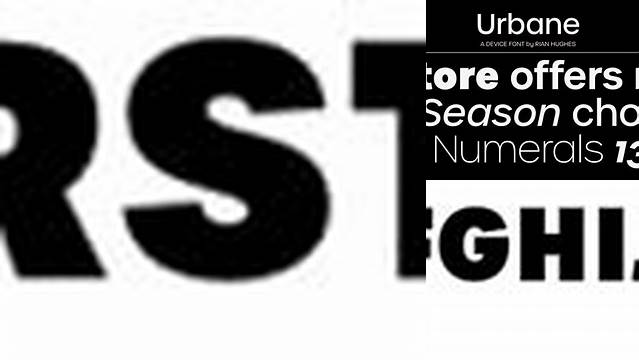
Are you looking for urbane heavy fonts? If you're a designer, a content creator, or just someone who loves typography, you know how crucial the right font can be. A font isn't just a way to display text; it's a powerful tool that can evoke emotions, set a tone, and even define a brand's identity. Among the myriad of fonts available, the Urbane Heavy font stands out for its bold, modern aesthetic. In this comprehensive guide, we'll dive deep into the world of Urbane Heavy, exploring what makes it so special, where you can find it for free download, and how to best use it in your projects. So, let's get started, guys!
What Makes Urbane Heavy Font So Special?
First off, let's talk about why Urbane Heavy has become such a popular choice. This font family is characterized by its clean lines, strong presence, and contemporary feel. It's a sans-serif typeface, which means it lacks the small decorative strokes (serifs) that you find in fonts like Times New Roman or Garamond. This gives it a more modern and minimalist appearance, perfect for designs that need to feel current and impactful. The heavy weight of the font adds to its visual impact, making it ideal for headlines, titles, and anywhere you need to grab the reader's attention.
But the appeal of Urbane Heavy goes beyond its aesthetics. It's also incredibly versatile. Whether you're designing a website, creating a poster, or putting together a presentation, this font can adapt to a wide range of applications. Its legibility is excellent, even at smaller sizes, which makes it a great choice for body text as well. Plus, the clean design ensures that it pairs well with other fonts, giving you the flexibility to create dynamic and visually interesting layouts. Think about it – the right font can make or break a design, and Urbane Heavy is a reliable option that can elevate your work.
Another key aspect of Urbane Heavy is its ability to convey a sense of strength and confidence. The bold weight and clean lines give it a robust feel, making it perfect for projects that need to project authority or stability. For instance, it's a popular choice for corporate branding, where it can help to create a professional and trustworthy image. But don't let its strength fool you – Urbane Heavy also has a touch of elegance. The carefully crafted letterforms have a subtle sophistication that makes it suitable for more refined designs as well. It's this blend of strength and elegance that makes Urbane Heavy a truly versatile and valuable addition to any designer's toolkit.
In short, Urbane Heavy stands out because it perfectly balances modern aesthetics with practical usability. Its bold presence and clean lines make it visually striking, while its legibility and versatility ensure that it can be used in a wide range of projects. And let’s be real, who doesn’t love a font that can make your work look both professional and stylish? It's no wonder so many designers are on the hunt for a free download of Urbane Heavy.
When browsing these sites, pay close attention to the licensing information. Free fonts often come with different usage restrictions. Some are free for personal use only, while others allow commercial use. Make sure the license covers your intended use to avoid any legal issues down the road. It's always better to be safe than sorry, guys! Also, be wary of websites that seem too good to be true. If a site is offering a wide range of premium fonts for free without clear licensing information, it's probably best to steer clear. These sites may be distributing fonts illegally or could even be a source of malware.
Another fantastic option is to look for font bundles or free font giveaways. Sometimes, designers or foundries will offer a selection of fonts for free as a promotional tool. Keep an eye on design blogs, social media groups, and email newsletters for these opportunities. You might just stumble upon a limited-time offer for Urbane Heavy or a similar font that you love. These giveaways can be a great way to build your font library without breaking the bank. Plus, it's always exciting to discover new fonts that you might not have found otherwise.
Finally, remember that sometimes the best approach is to explore alternatives. While you might have your heart set on Urbane Heavy, there are many other fonts out there that offer a similar aesthetic. By broadening your search, you might discover a font that you love even more, and that's readily available for free download. So, keep an open mind, explore different options, and don't be afraid to experiment. The world of typography is vast and full of possibilities!
The Urbane Heavy font is a fantastic choice for designers and content creators who need a bold, modern typeface that commands attention. Its clean lines, strong presence, and versatility make it a valuable asset for a wide range of projects. While finding a free download of Urbane Heavy itself might require some searching, there are many excellent alternatives available that offer a similar aesthetic. By exploring resources like Google Fonts, font marketplaces, and design blogs, you can discover a wealth of high-quality typefaces that will elevate your work. Remember to always check licensing information and use fonts responsibly. And most importantly, have fun experimenting with typography and finding the perfect font for your next creative endeavor. Happy designing, guys!